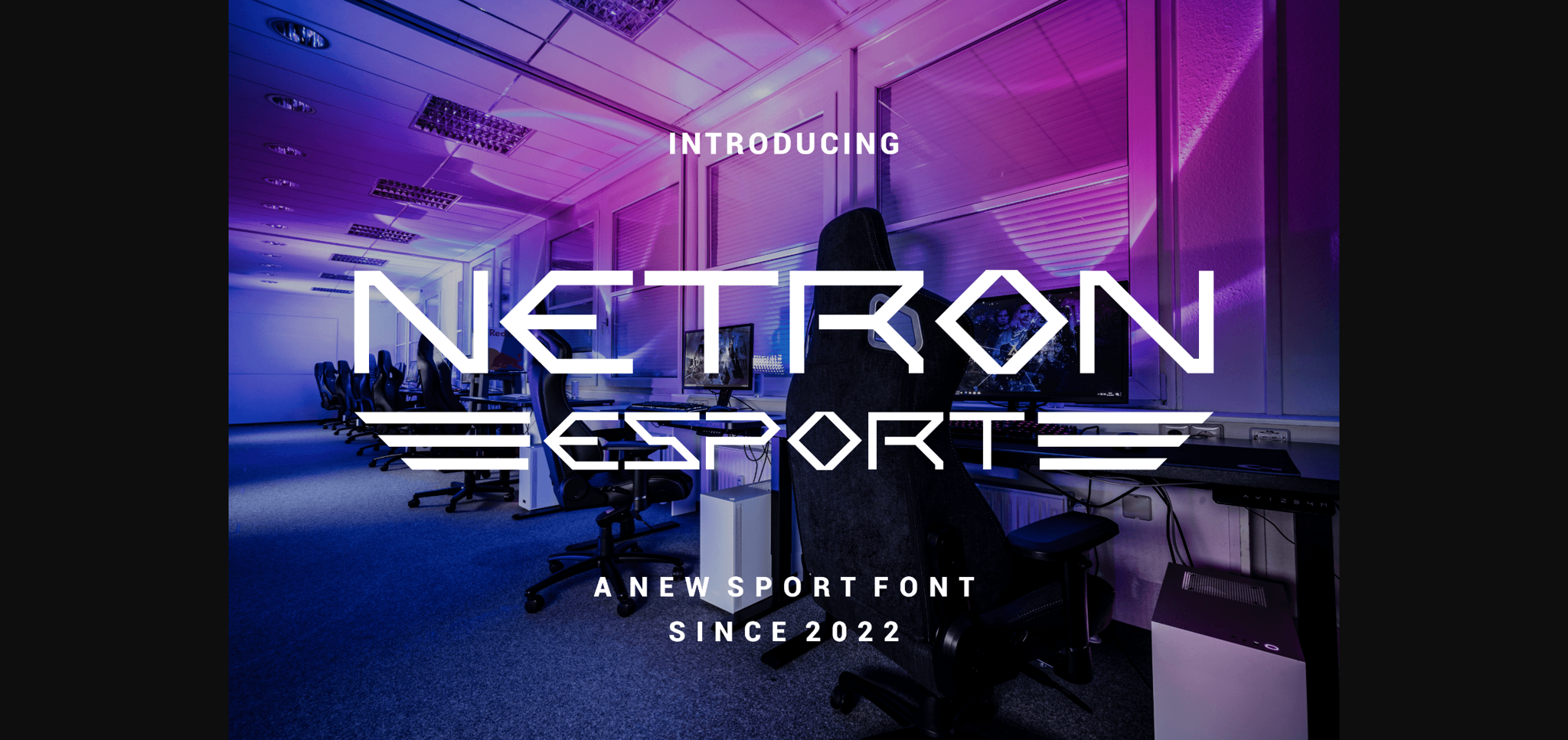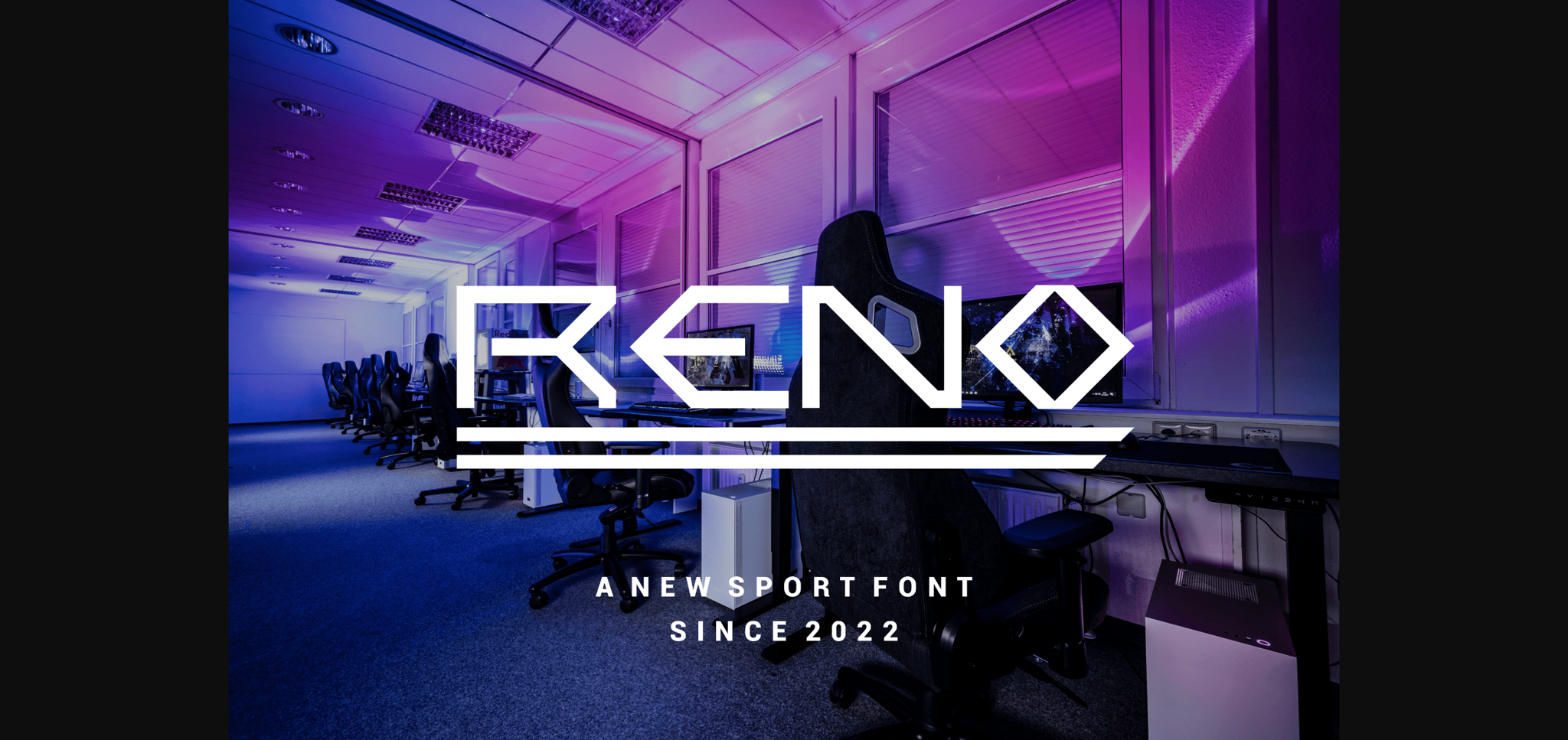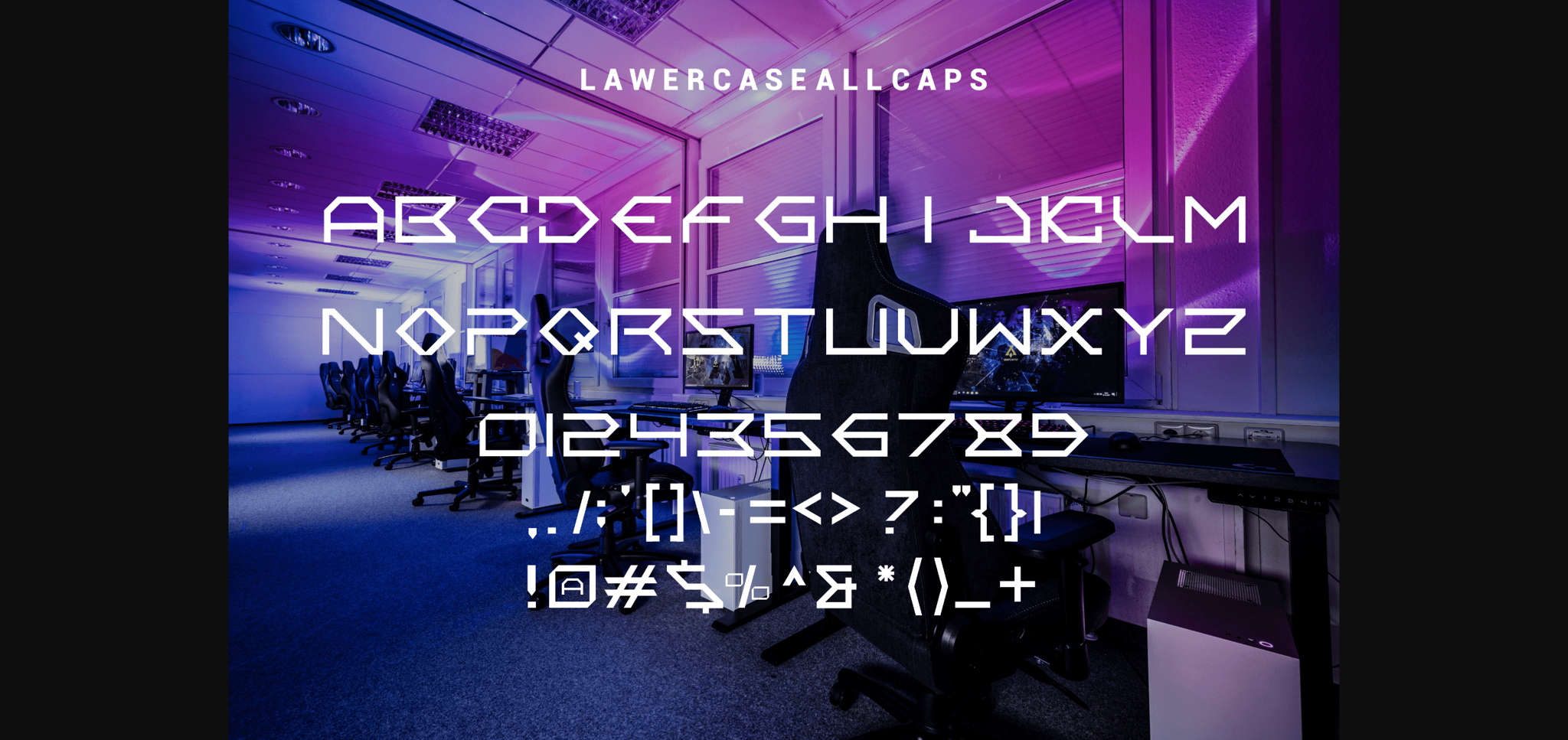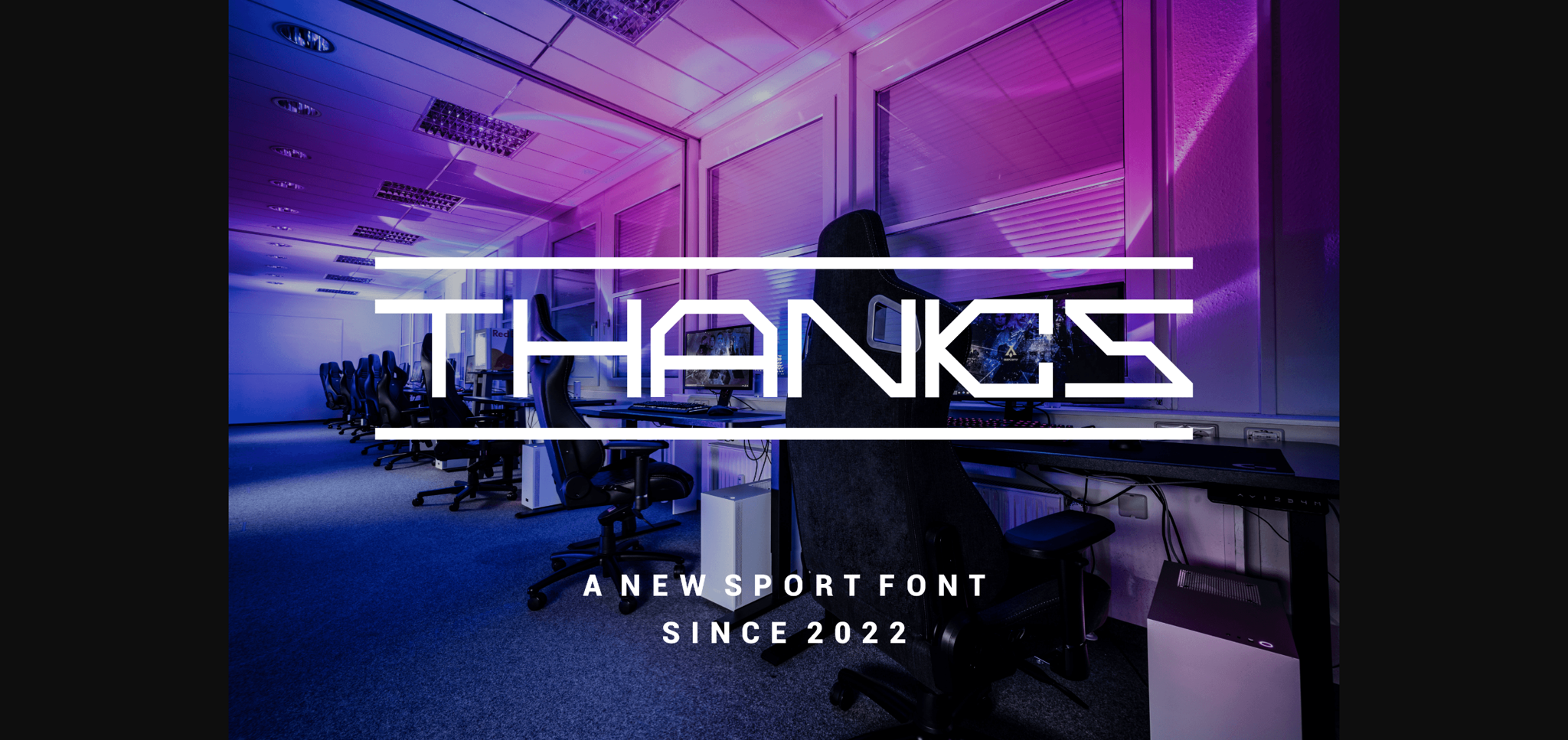
About Netron Font
Netron is a sans serif font with a charming touch of modernity and style. It is perfect for space-related magazines, fantasy storybooks, tech companies, advertisements, or anything futuristic.